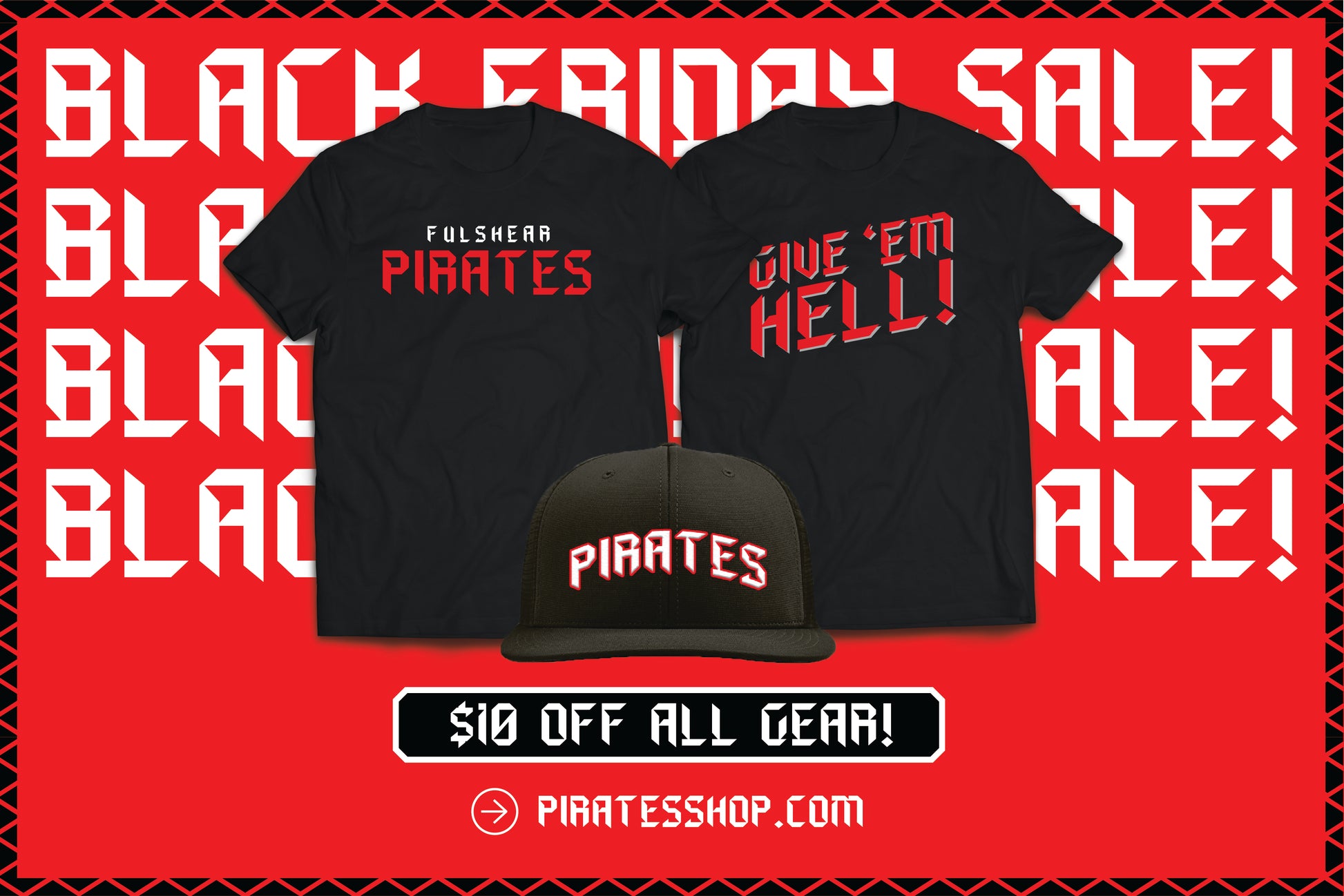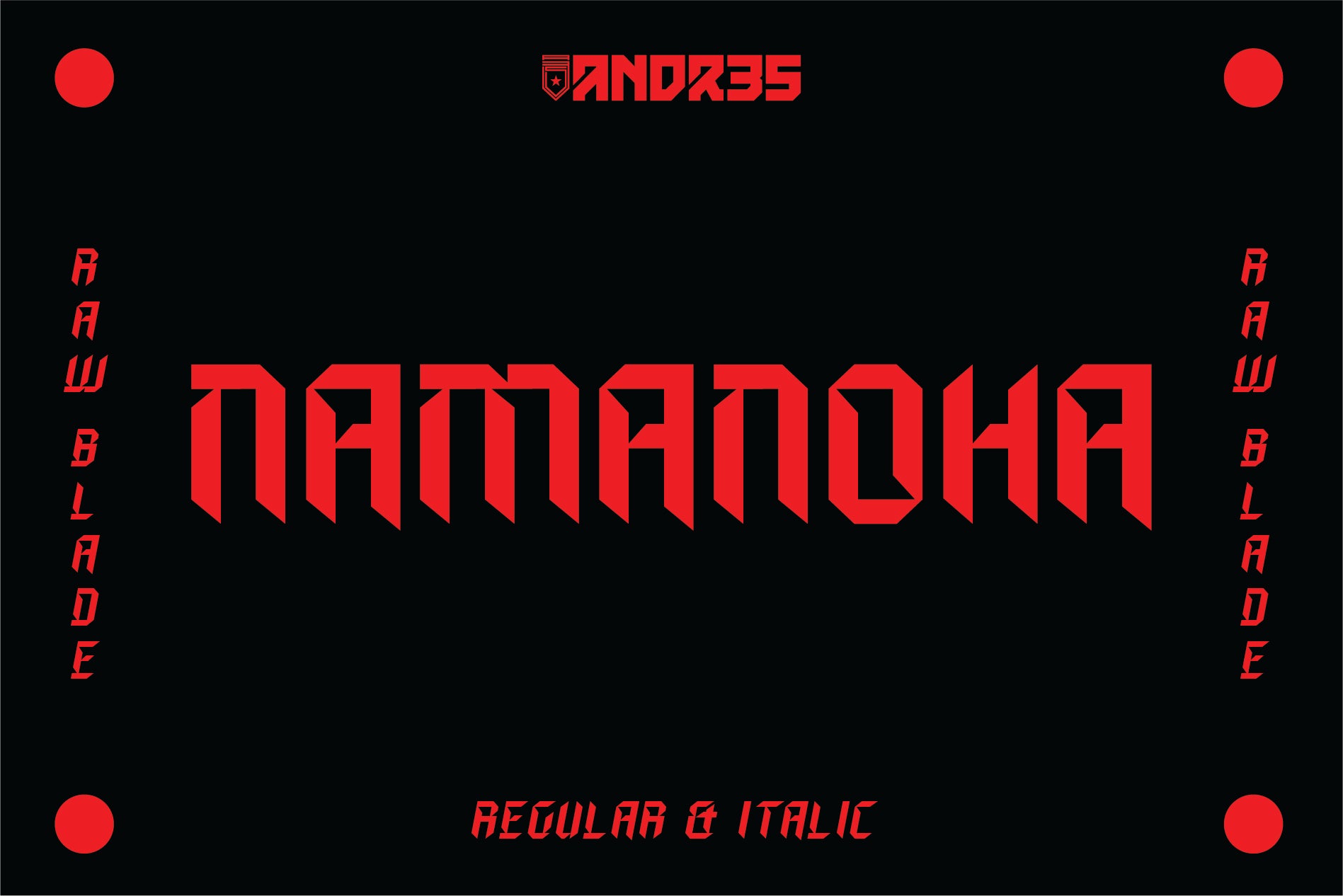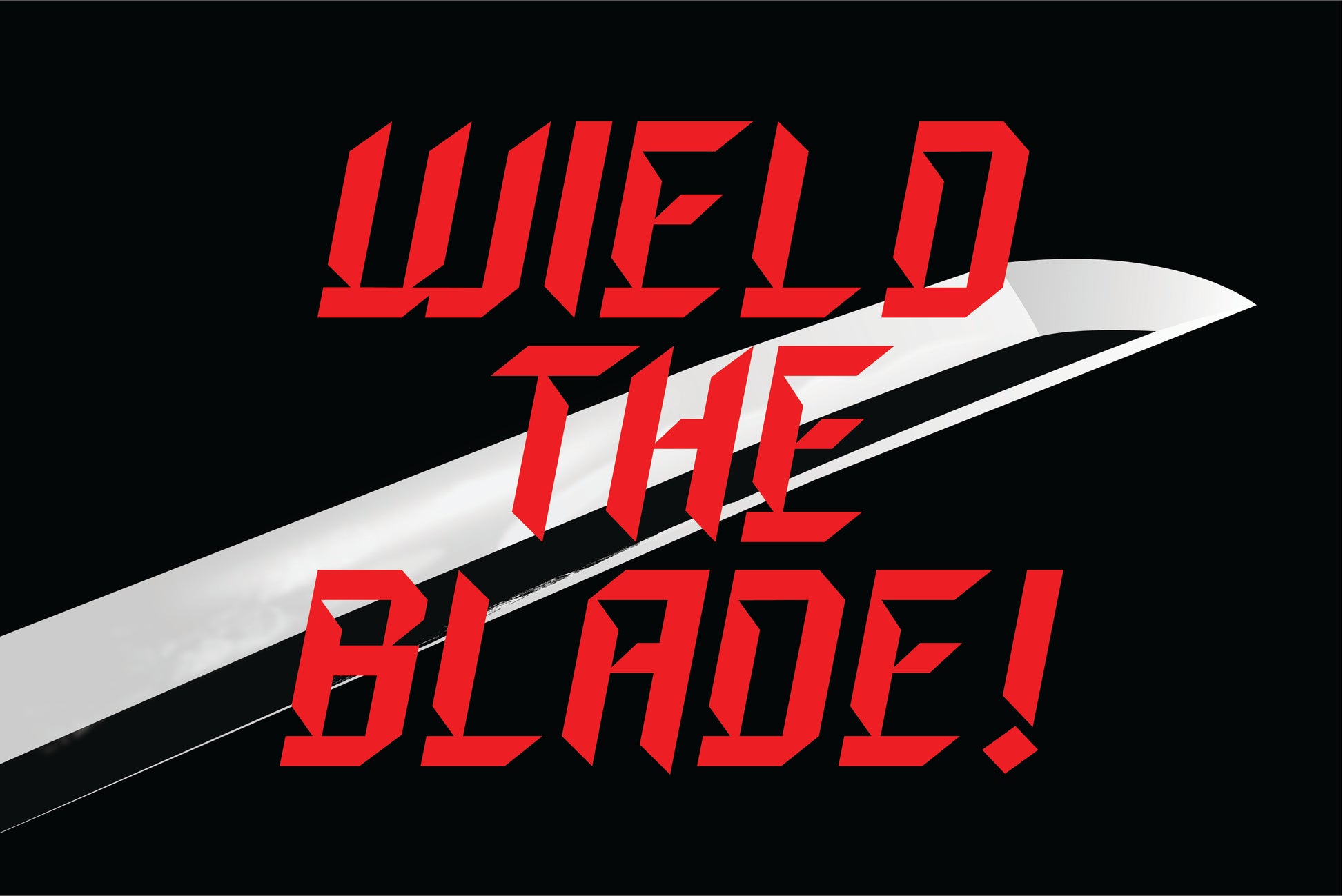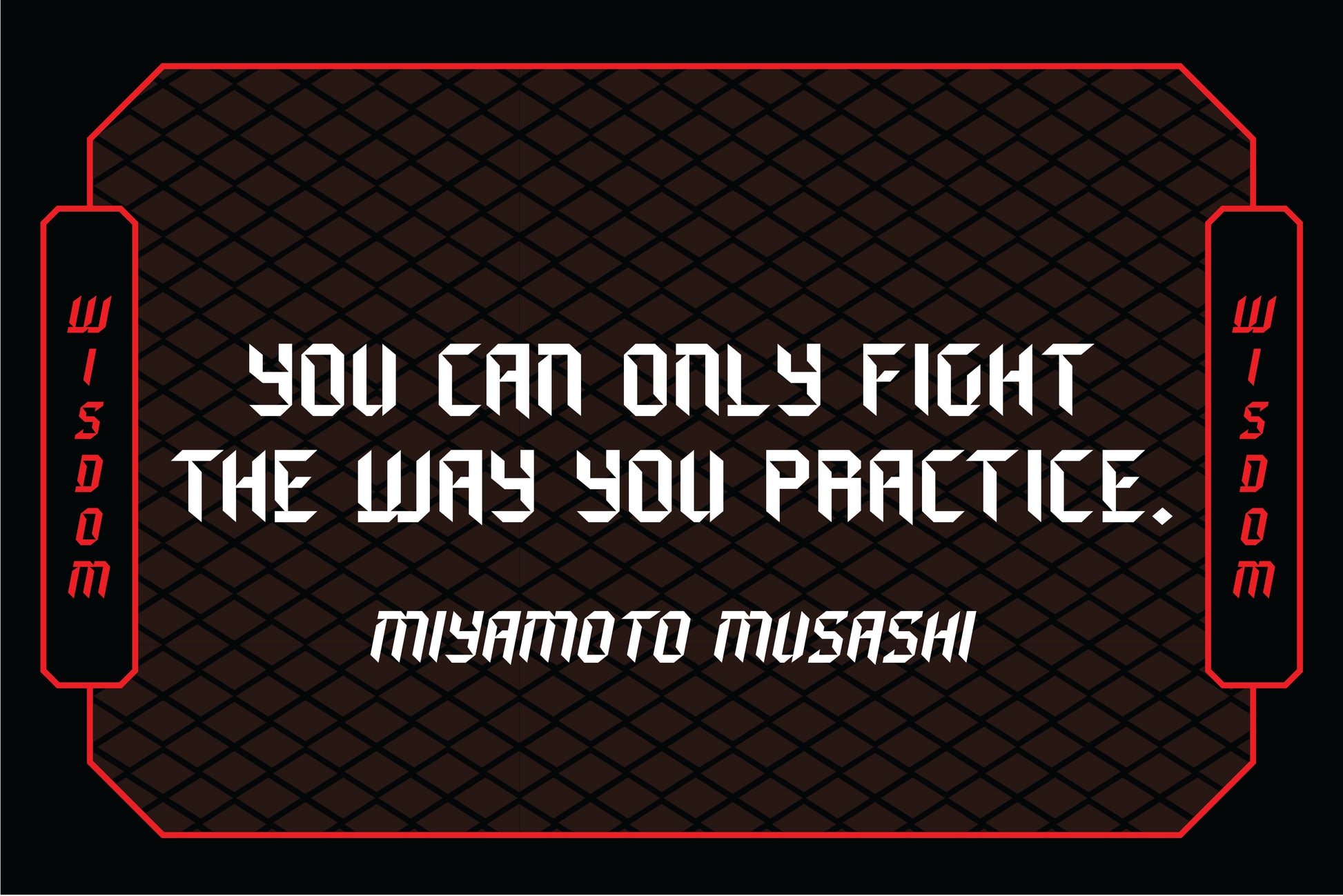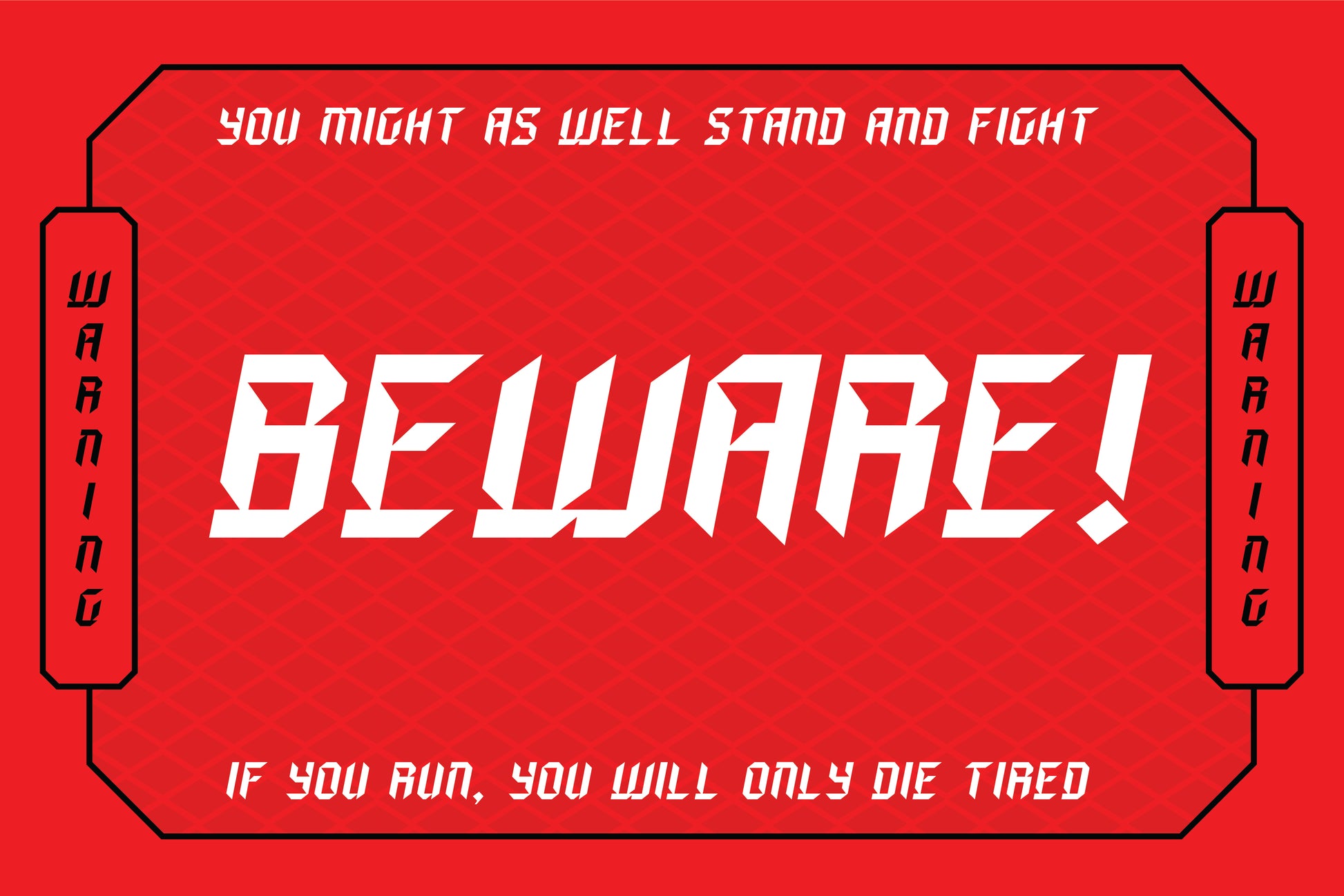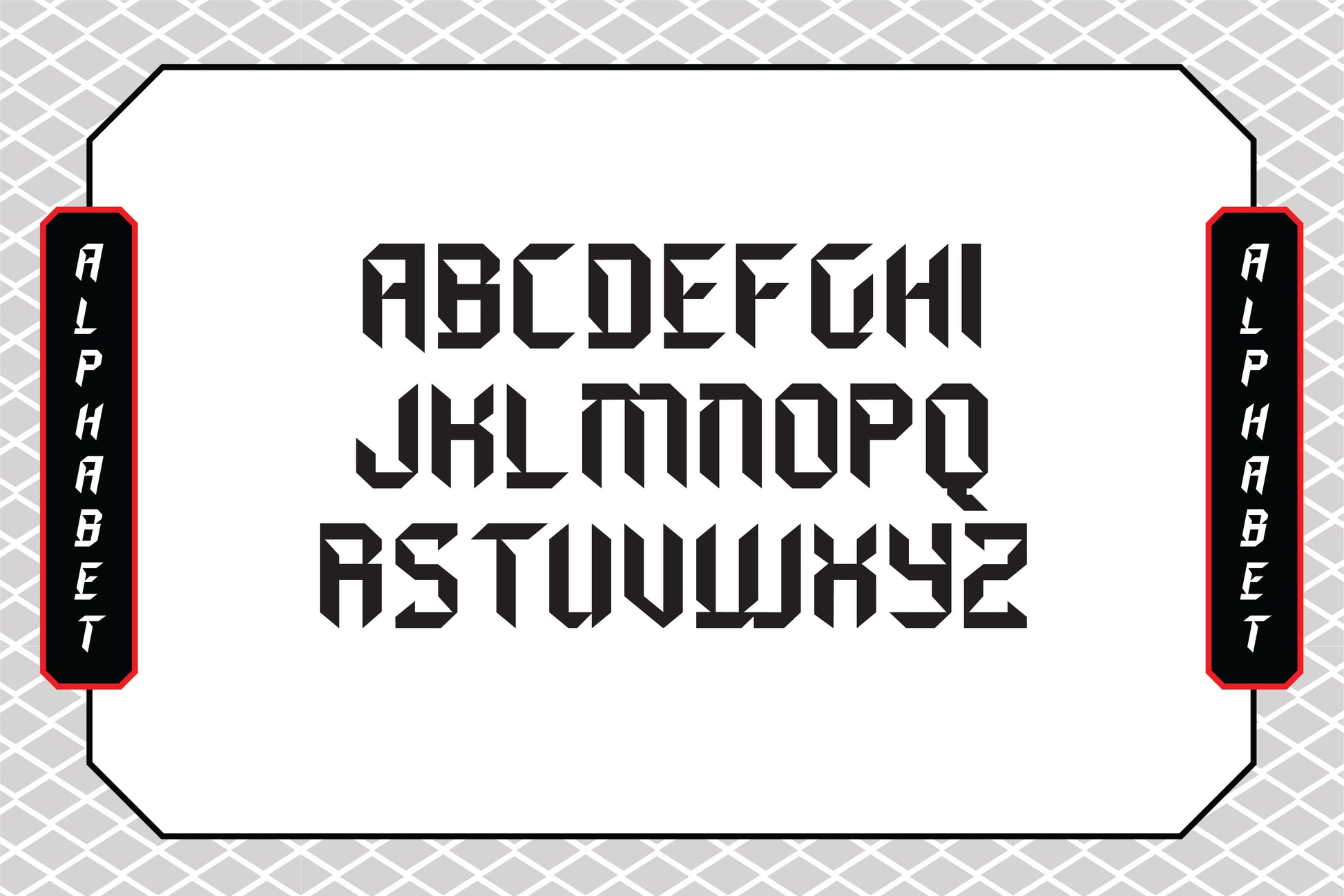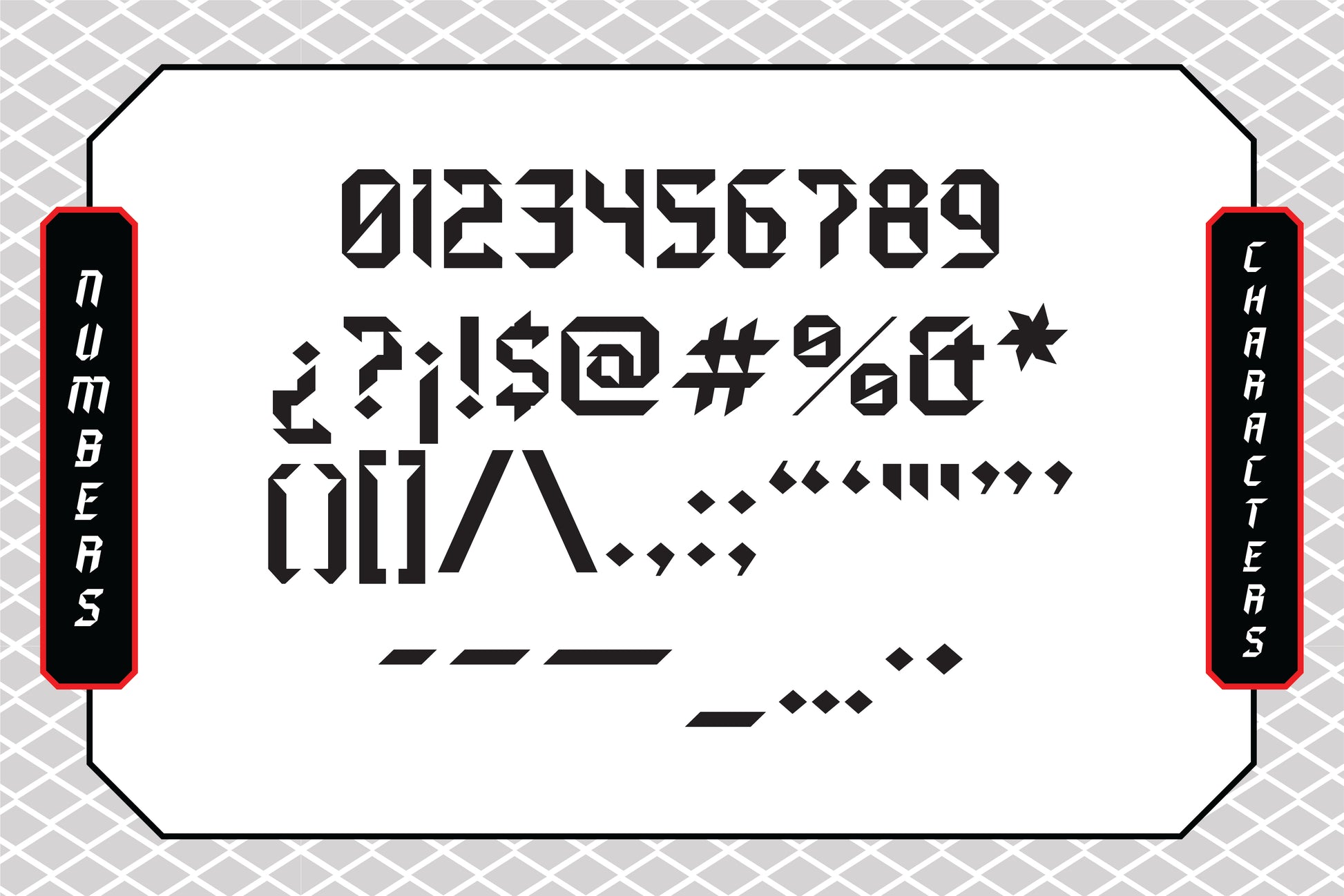
Namanoha Typeface
NAMANOHA is a typeface inspired by the samurai of old and sport. It is the combination of Nama No Ha which loosely translates to Raw Blade, which is what it is like...a quick, sharp and raw cut typeface.
NAMANOHA is not to be taken lightly in the sense that it is not for large amounts of text and it's better built for displays and headlines. It's meant to cut thru the noise and give some edginess to your designs. Use it in your sports, apparel, eSports/gaming, fashion designs but try it where ever you see fit. You wield the blade, use it wisely!
Some of NAMANOHA'S features include:
• a few alternate glyphs
• slanted/ faux italic style to add some attitude
• basic punctuation to get you going